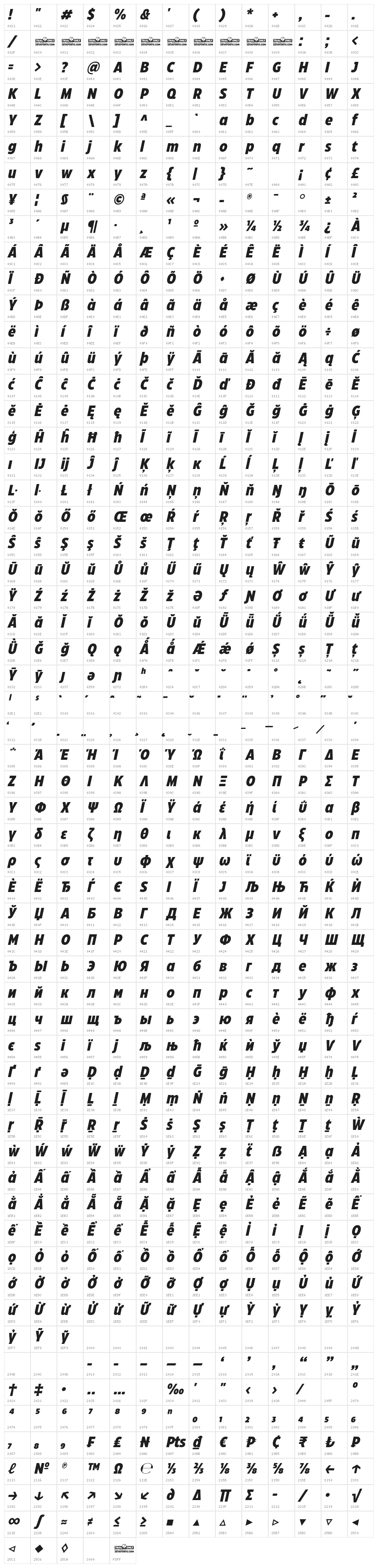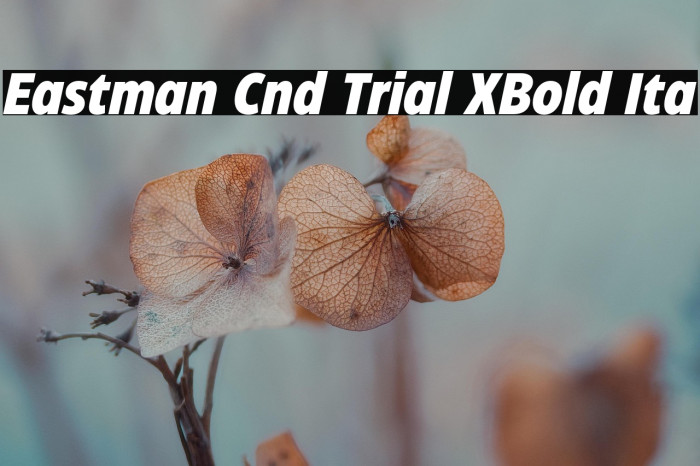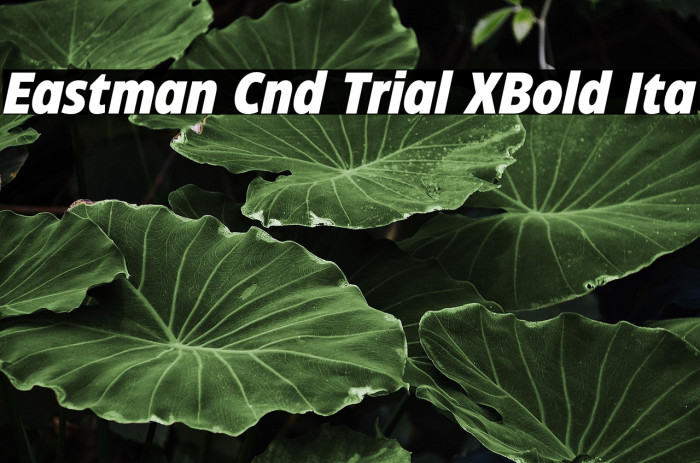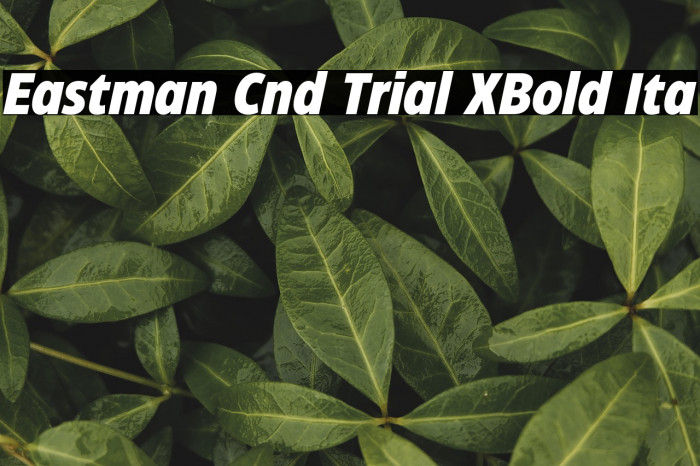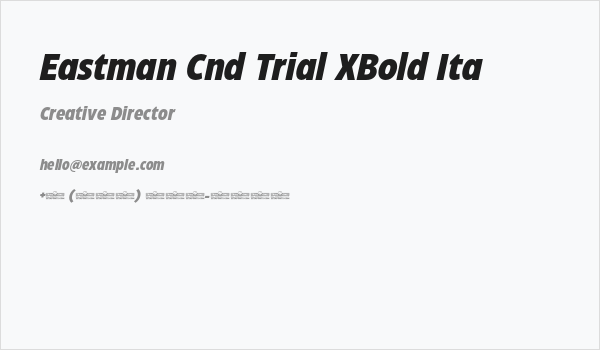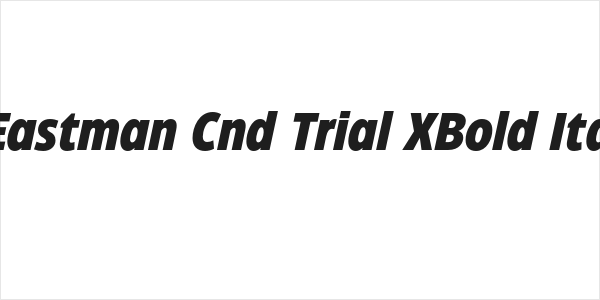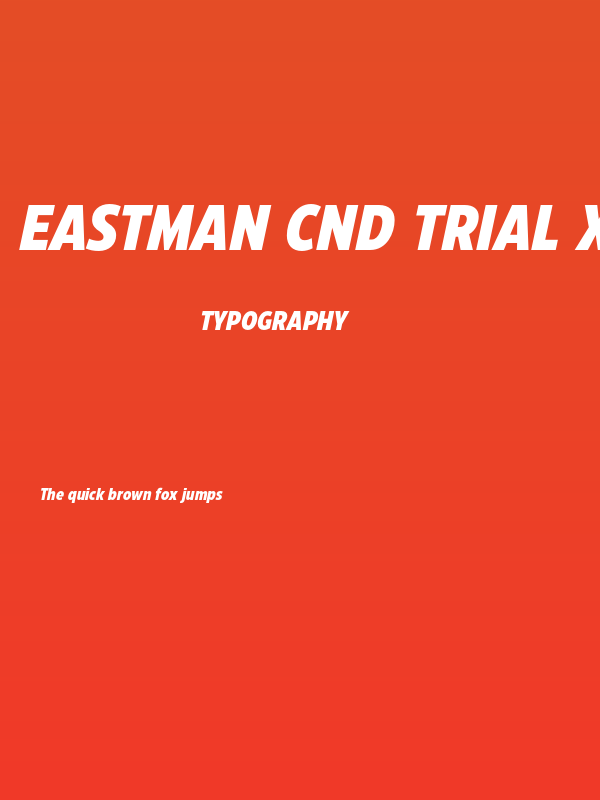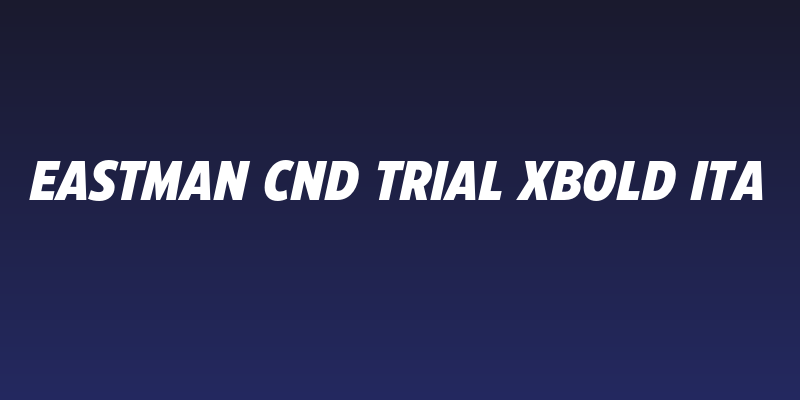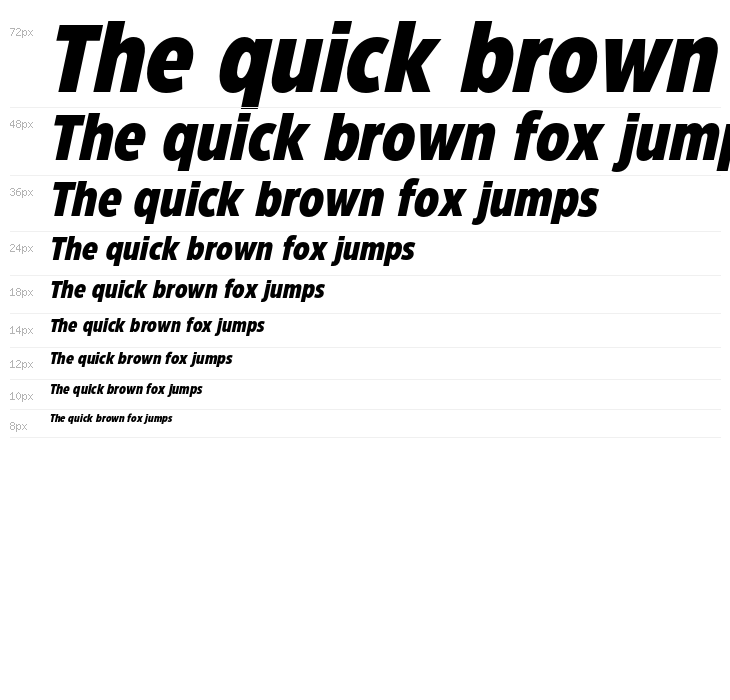
Eastman Cnd Trial XBold Ita Font
Eastman Cnd Trial XBold Ita Description
This font features a bold and italicized style with a condensed width, giving it a strong and impactful presence. The characters are designed with a modern aesthetic, showcasing clean lines and a slight slant that adds dynamism. The uppercase and lowercase letters maintain a consistent weight, ensuring readability and uniformity across different text sizes. The numerals and special characters are crafted to match the boldness of the alphabet, making them suitable for attention-grabbing headlines or titles. The overall design is sleek and contemporary, ideal for projects that require a bold statement.
| Proposed Projects | Ideal for branding, advertising, posters, and headlines where a strong visual impact is needed. |